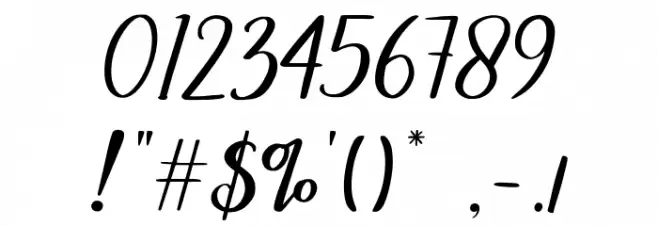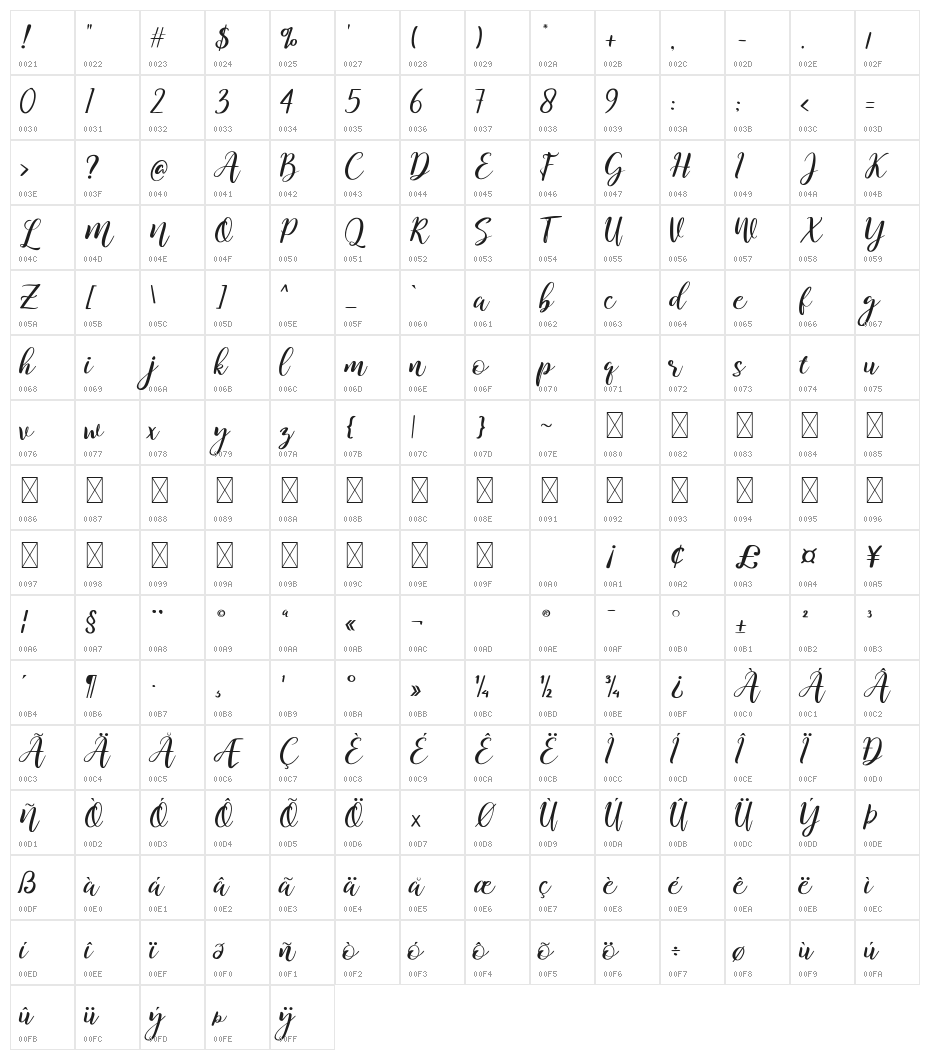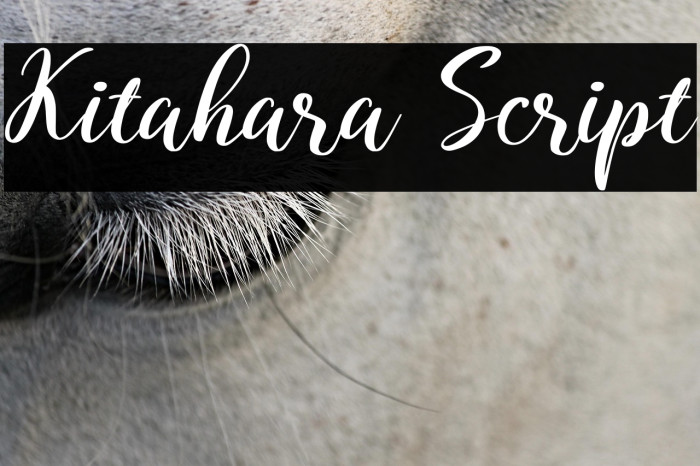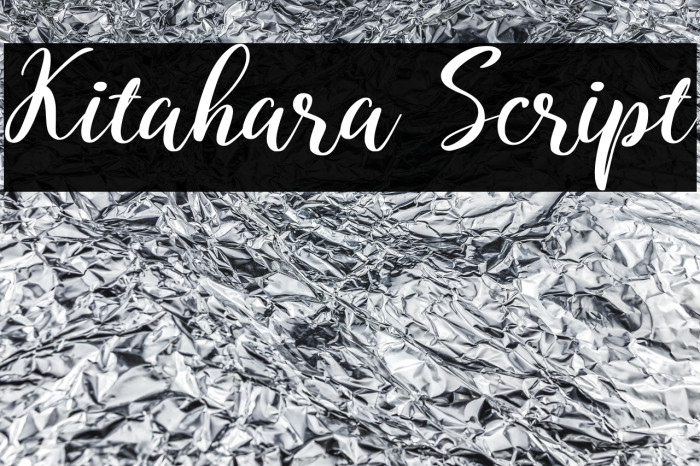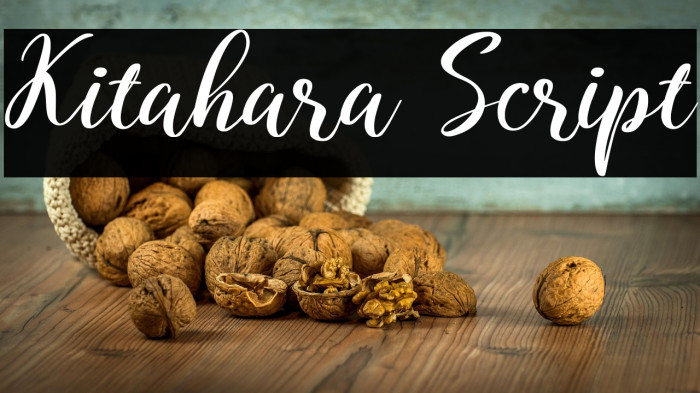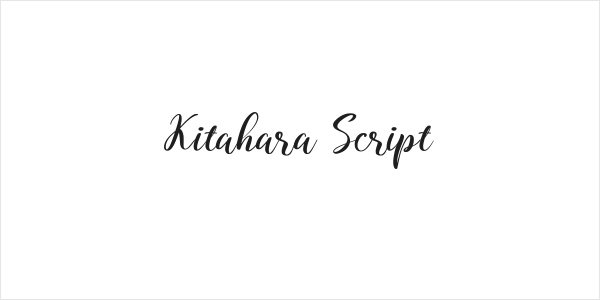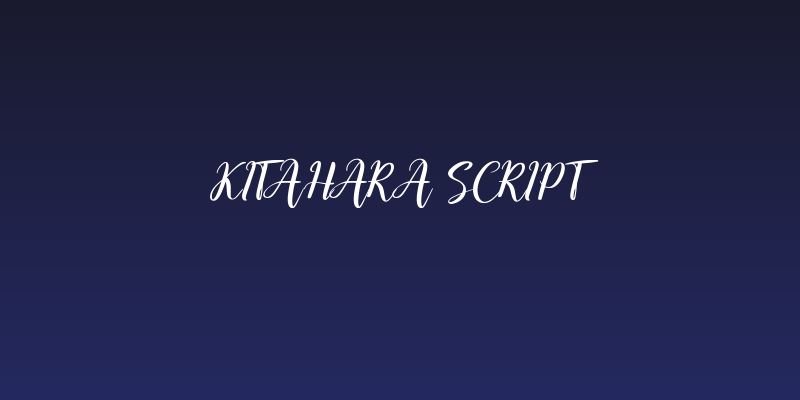
Kitahara Script Font
Kitahara Script Description
This font features a flowing, elegant script style with a handwritten appearance. The letters are connected in a smooth, cursive manner, giving it a sophisticated and artistic look. The uppercase letters are bold and prominent, while the lowercase letters maintain a consistent flow, enhancing readability. The numerals and special characters are designed to match the overall aesthetic, providing a cohesive look across all elements. The font's strokes vary in thickness, adding a dynamic and lively feel to the text. Its decorative nature makes it suitable for creative and expressive designs.